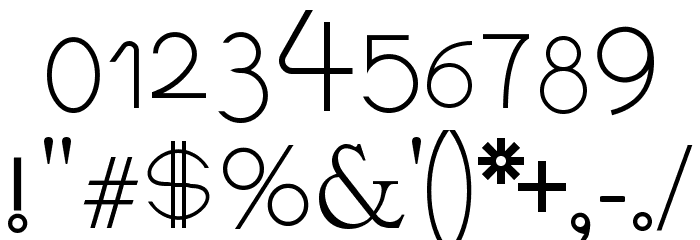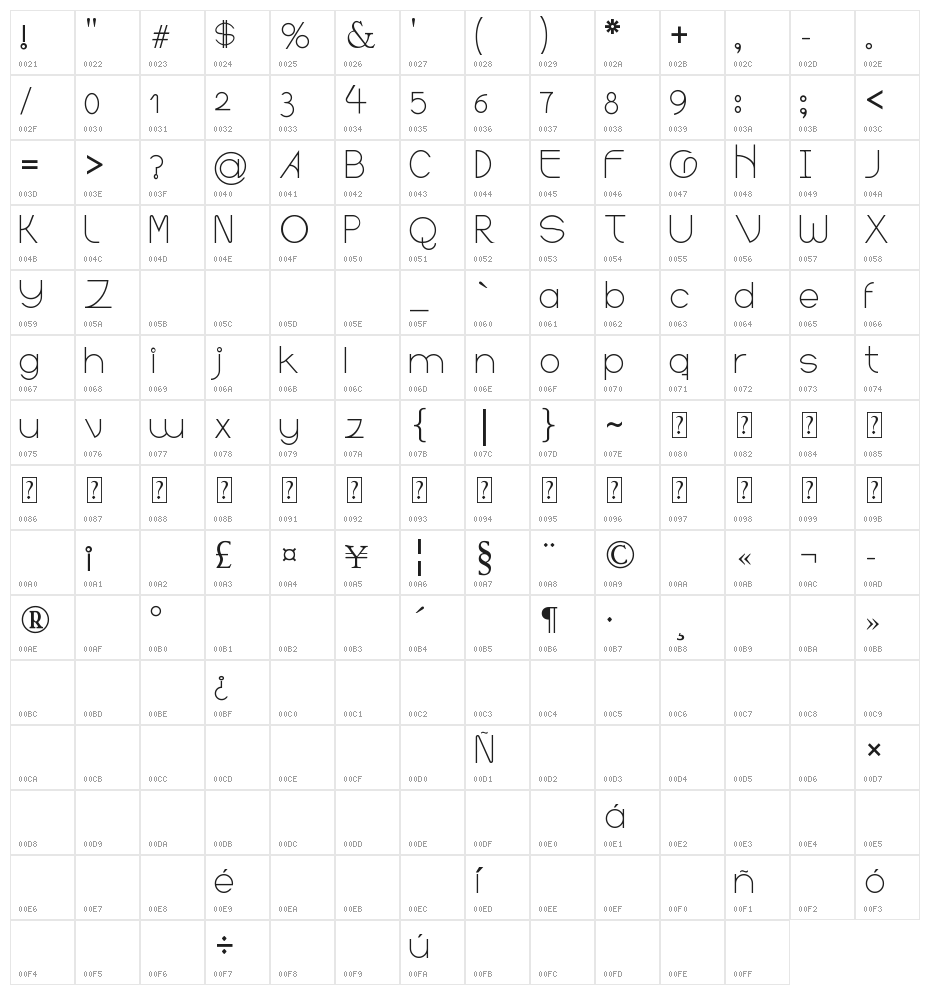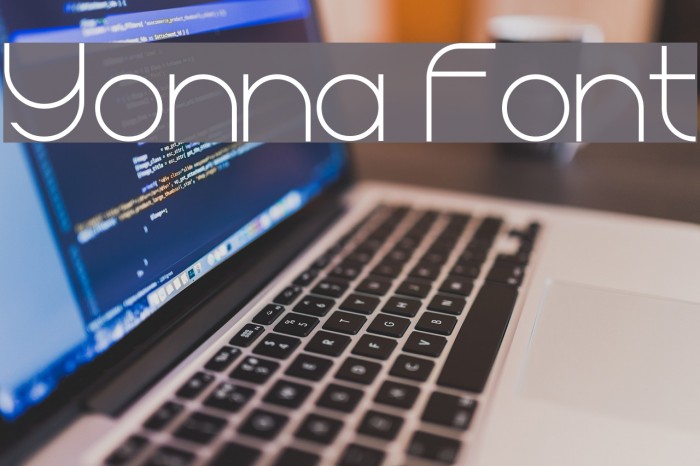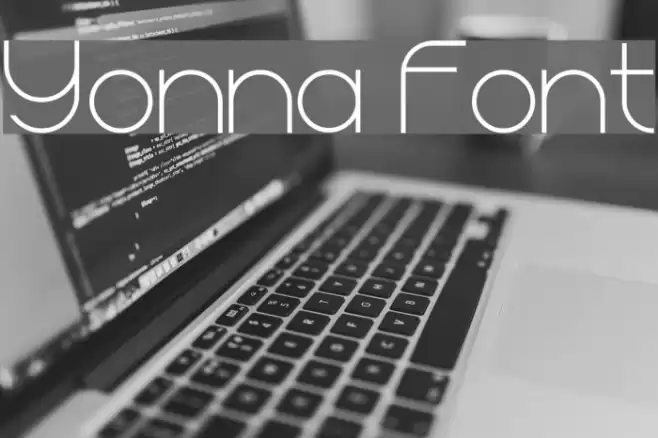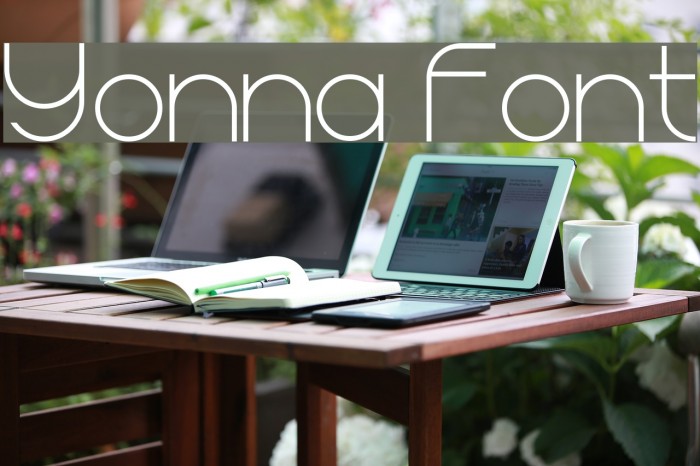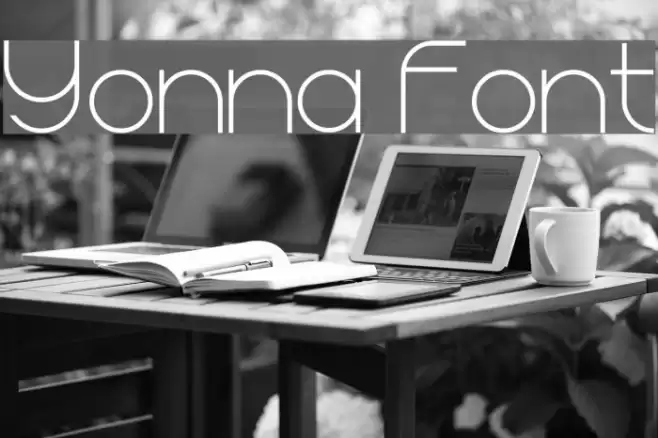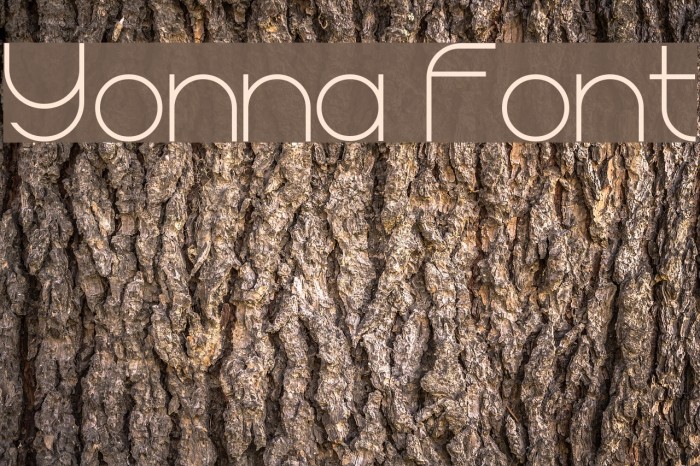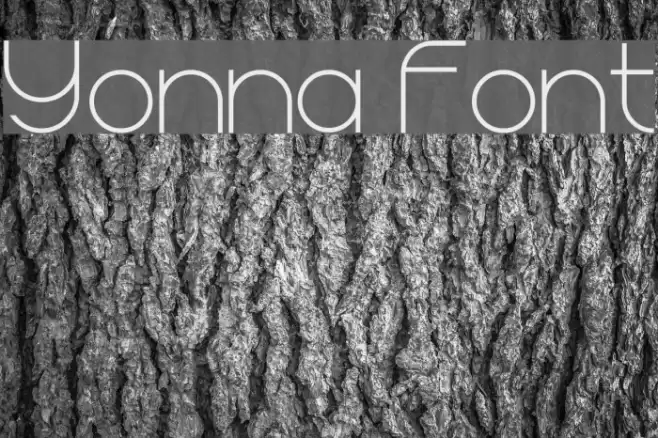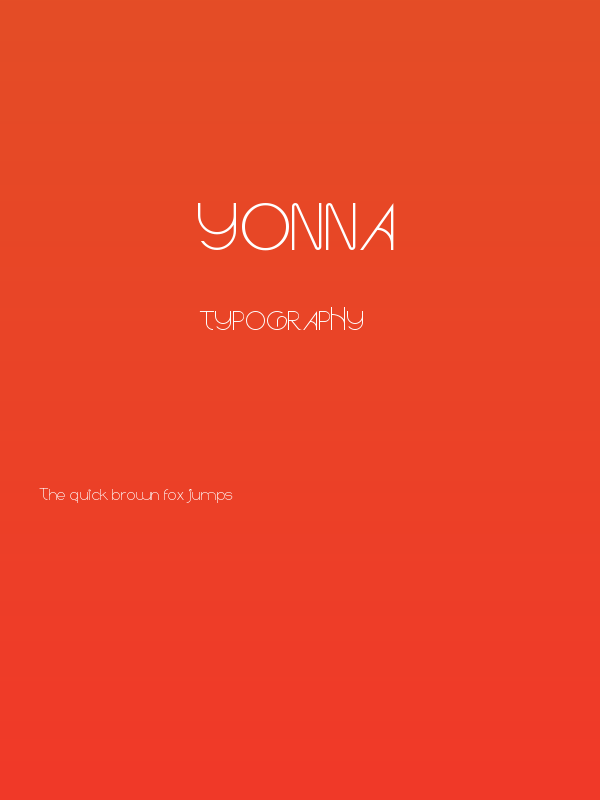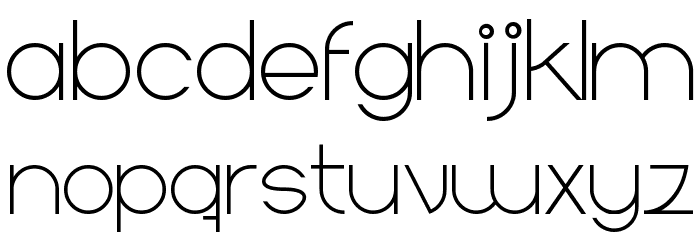
Yonna Font
Yonna Description
This font features a modern and minimalist design with clean, geometric lines and a consistent stroke width. The uppercase letters exhibit a unique blend of straight and curved elements, creating a harmonious balance. The lowercase letters maintain a similar aesthetic, with rounded forms that enhance readability. Numbers are designed with a sleek, contemporary style, while special characters are crafted to match the overall geometric theme. The font's simplicity and elegance make it versatile for various design applications.
| Use Case | Headlines, Logos, Digital Media |
| Proposed Projects | Ideal for branding, advertising, digital media, and modern web design projects. |